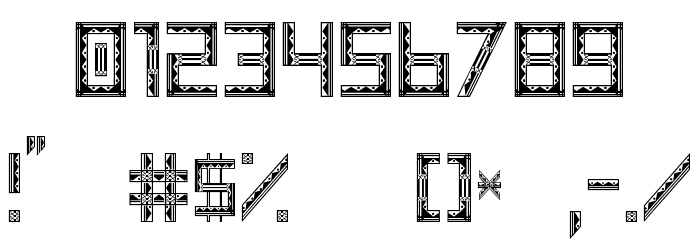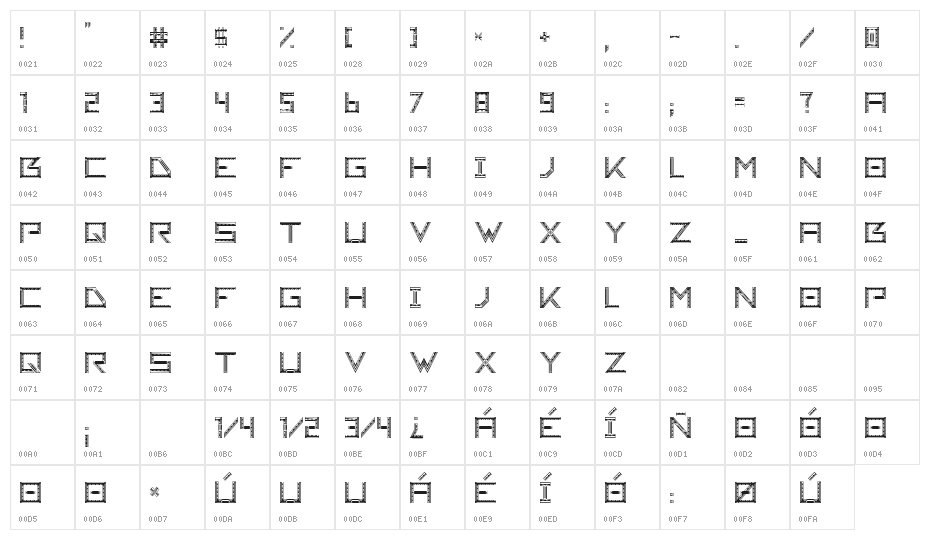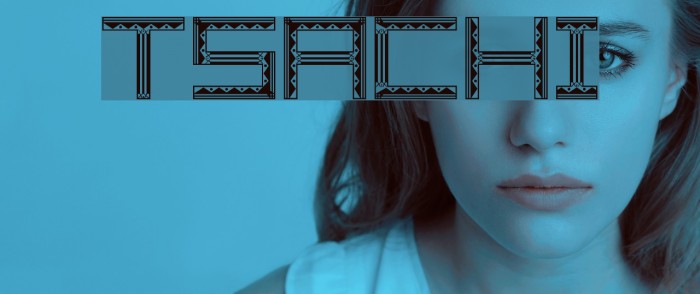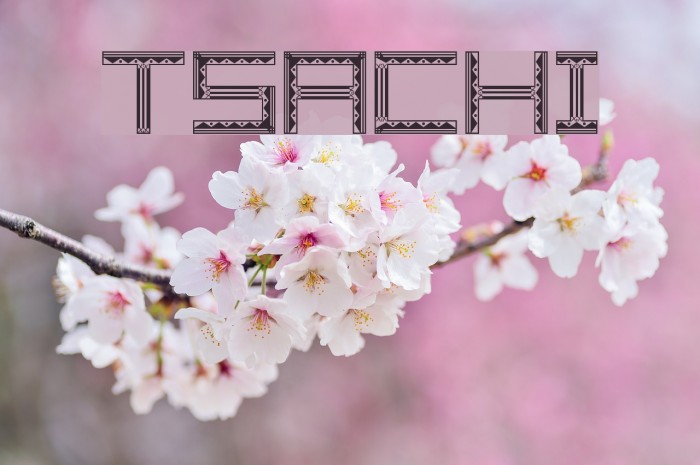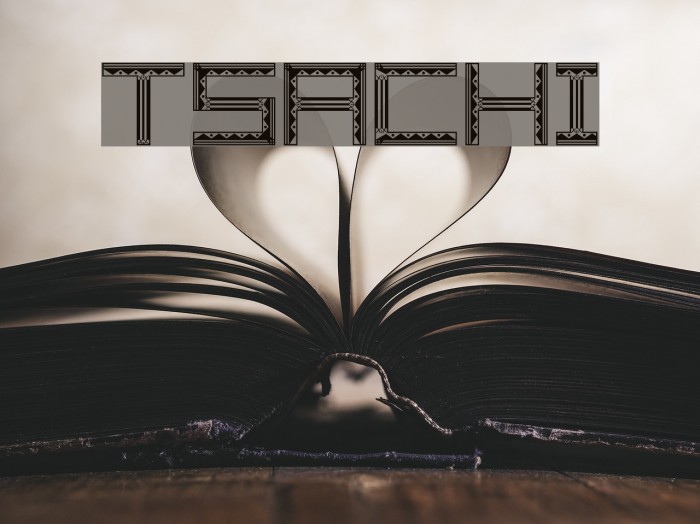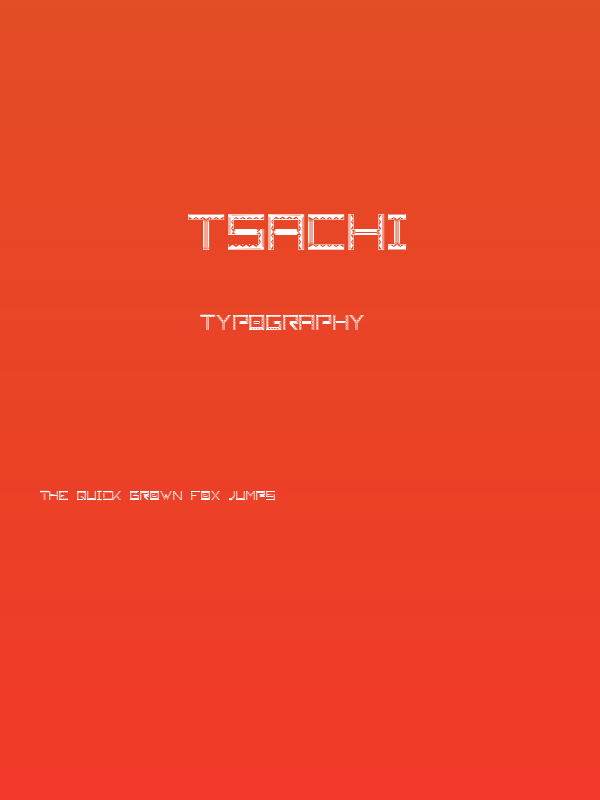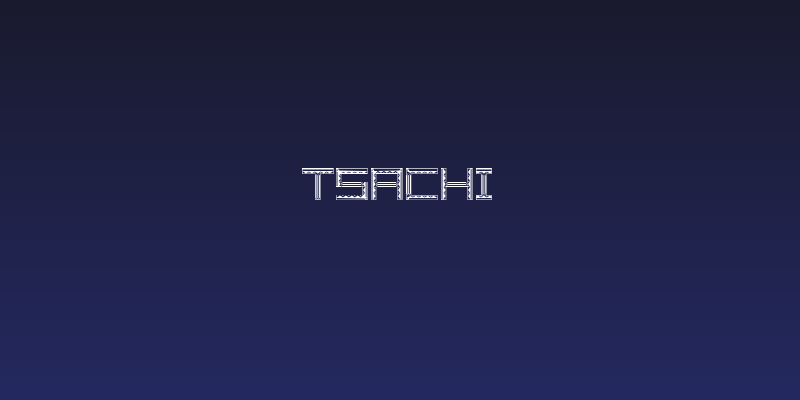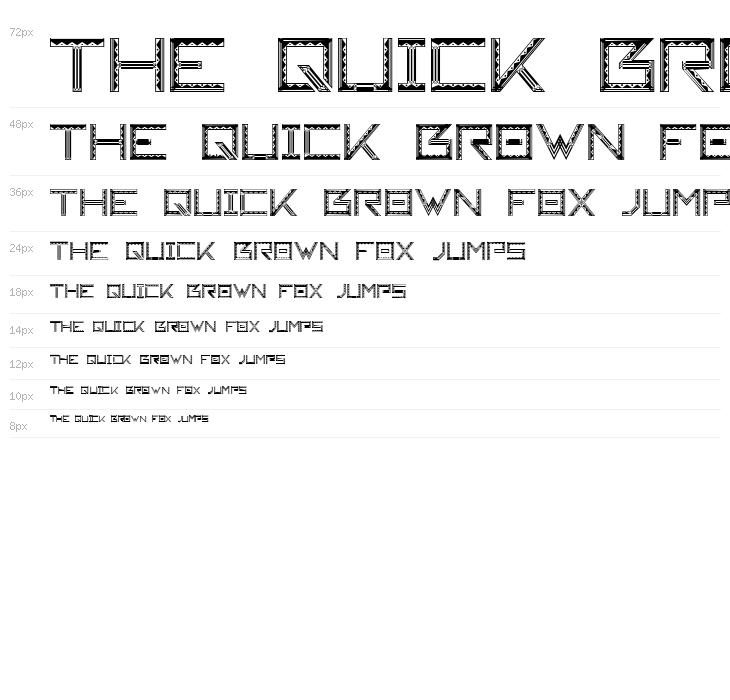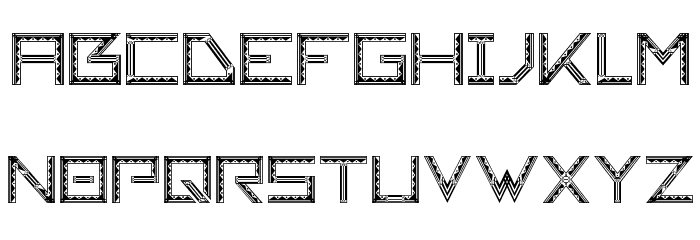
Tsachi Font
Tsachi Description
This font features a unique decorative style with intricate patterns within each character. The uppercase letters are bold and geometric, with a tribal or ethnic motif that adds a distinct visual interest. The lowercase letters maintain the same decorative theme, ensuring consistency throughout the typeface. Numbers and special characters are equally adorned with the same intricate designs, making them stand out. The overall appearance is striking and artistic, suitable for projects that require a bold statement. The font's decorative elements make it ideal for use in creative and artistic contexts, where a touch of uniqueness is desired.
| Proposed Projects | Ideal for posters, album covers, branding, and artistic projects requiring a bold, decorative touch. |